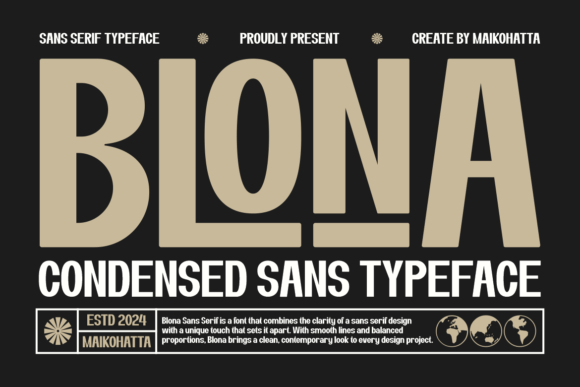
Introducing Blona Font: The Epitome of Modern Elegance and Efficiency
In the realm of typography, the right font can elevate a design from ordinary to extraordinary. For those seeking a sleek, modern, and versatile typeface, Blona Font stands out as an exceptional choice. Designed with contemporary elegance and efficiency in mind, Blona is a condensed sans-serif font that embodies professionalism and adaptability, making it perfect for a wide range of design applications.
The Design Philosophy Behind Blona
Blona’s design is rooted in simplicity and functionality. Its clean lines and compact letterforms are meticulously crafted to convey a sense of sophistication and modernity. This font is not just about aesthetics; it’s also about efficiency. The condensed nature of Blona allows designers to create impactful headlines, logos, and editorial content without compromising on readability or style.
Key Features of Blona Font
- Sleek and Condensed Design: Blona’s sleek, condensed design makes it ideal for headlines, titles, and short texts where space is limited but impact is crucial.
- Sans-Serif Elegance: The sans-serif design of Blona lends it a clean and modern look, suitable for a variety of contemporary design projects.
- High Readability: Despite its condensed form, Blona maintains high readability, even at smaller sizes, making it versatile for use in different contexts.
- Professional and Versatile: Blona’s neutral yet distinctive style allows it to seamlessly integrate into various design projects, from corporate branding to editorial design.
Applications of Blona Font
Blona’s versatility and aesthetic appeal make it suitable for a multitude of design applications:
- Headlines and Titles: Its condensed and impactful design makes Blona perfect for headlines and titles, grabbing attention without taking up too much space.
- Branding and Logo Design: Blona’s modern and professional look is ideal for branding and logo design, helping to create a sleek and contemporary image for businesses.
- Editorial Design: For magazines, newspapers, and digital publications, Blona offers a polished aesthetic that enhances readability and visual appeal.
- Digital Interfaces: Its clean and legible design makes Blona suitable for use in digital interfaces, including websites, apps, and mobile interfaces.
Benefits of Using Blona Font
Choosing Blona Font for your design projects comes with several benefits:
- Time Efficiency: With Blona, designers can create visually appealing typographic compositions quickly, thanks to its ready-to-use, high-quality design.
- Consistency: Blona helps maintain typographic consistency across different platforms and materials, reinforcing brand identity.
- Readability and Versatility: It offers a balance of style and readability, making it suitable for a wide range of applications, from print to digital.
Blona Font is a powerful tool for designers and crafters looking to infuse their projects with modern elegance and efficiency. Its sleek, condensed sans-serif design, coupled with high readability and versatility, makes it an excellent choice for headlines, branding, editorial design, and more. By incorporating Blona into your typographic arsenal, you can simplify your design process while elevating the aesthetic quality of your work. Whether you’re working on a corporate brand, a digital project, or an editorial piece, Blona Font offers the perfect blend of style, efficiency, and professionalism.
- Experiment with Different Sizes: Play around with Blona at various sizes to see how it performs in different contexts, from large headlines to body text.
- Pairing with Other Fonts: Experiment with pairing Blona with other fonts to create visual interest and hierarchy in your designs.
Blona Font represents a harmonious blend of modern design principles and practical usability. Its introduction into your design projects promises not only to enhance their visual appeal but also to streamline your creative process. Embrace Blona for your next project and experience firsthand the impact of elegant, efficient typography.